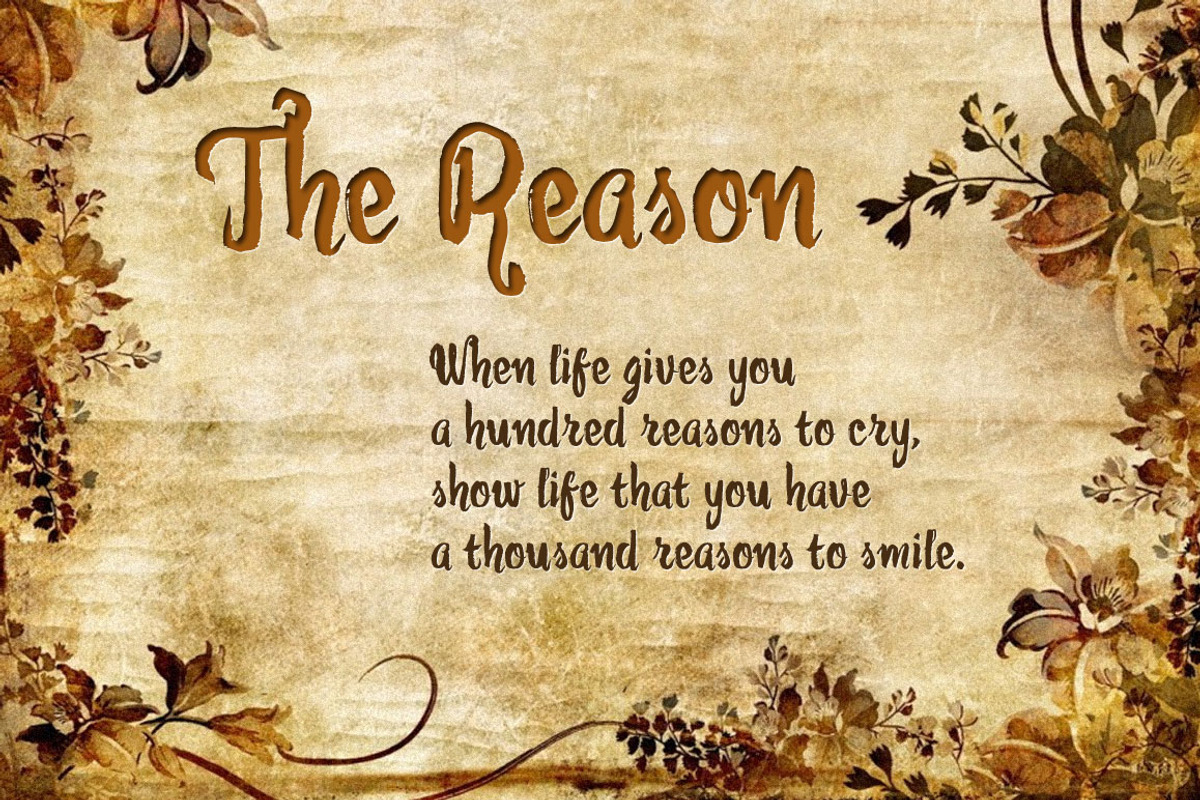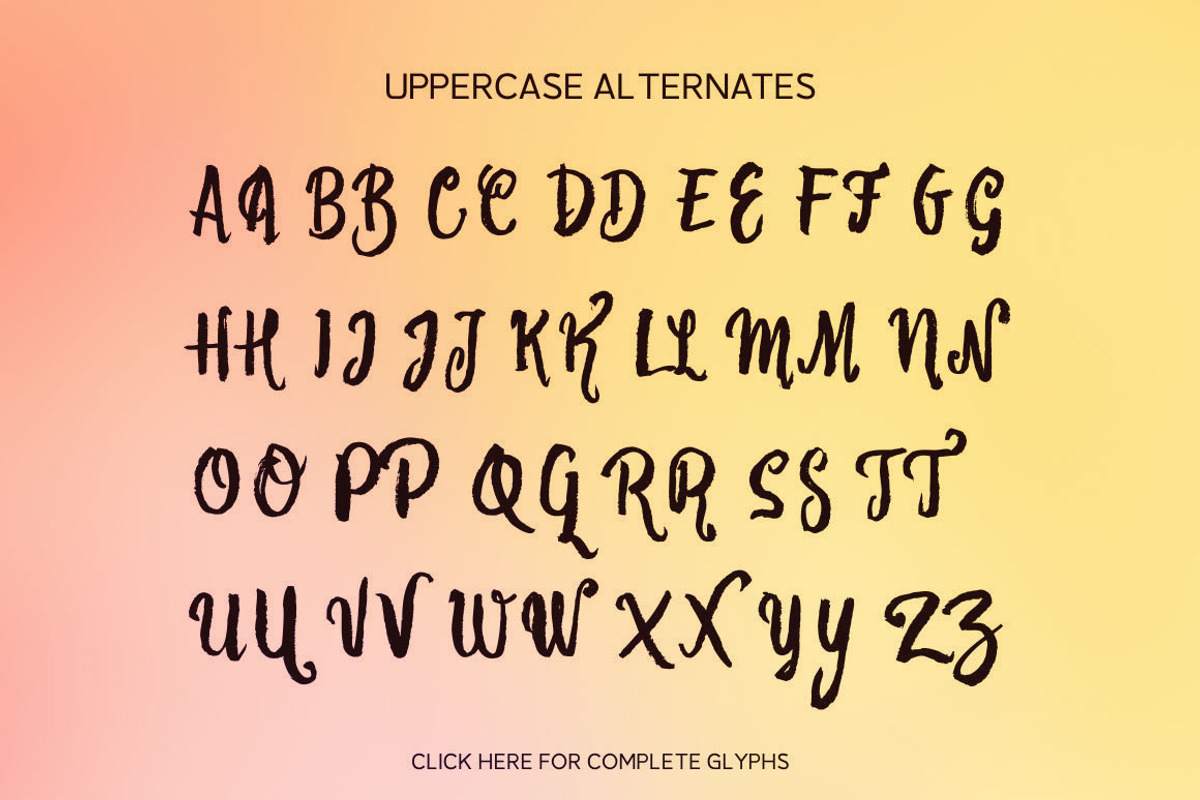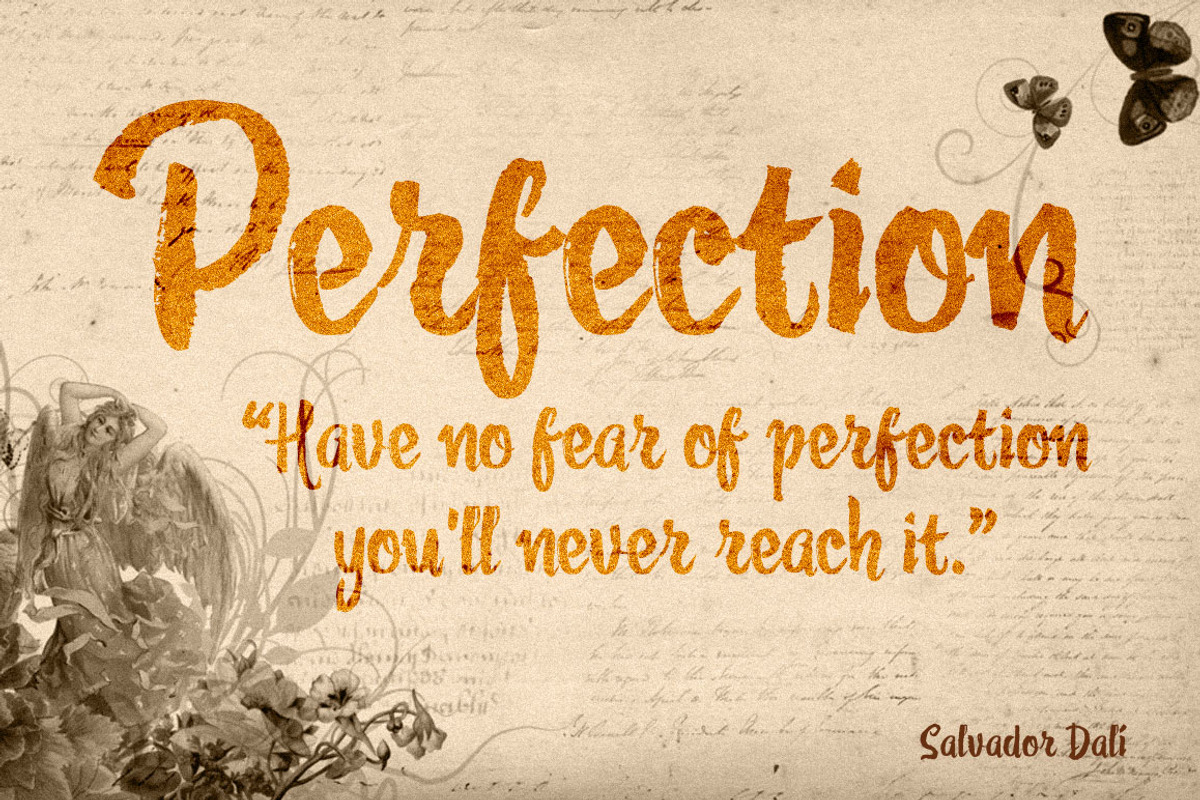
Fonino - Imperfect Typeface
Fonino - Imperfect Typeface by Locomotype is a font selected for branding, posters, packaging, typography.
- You can create different design using Fonino that comes with alternates on uppercase.
Why Fonino - Imperfect Typeface is worth a look
Fonino - Imperfect Typeface by Locomotype fits naturally into Branding, posters, packaging, typography.